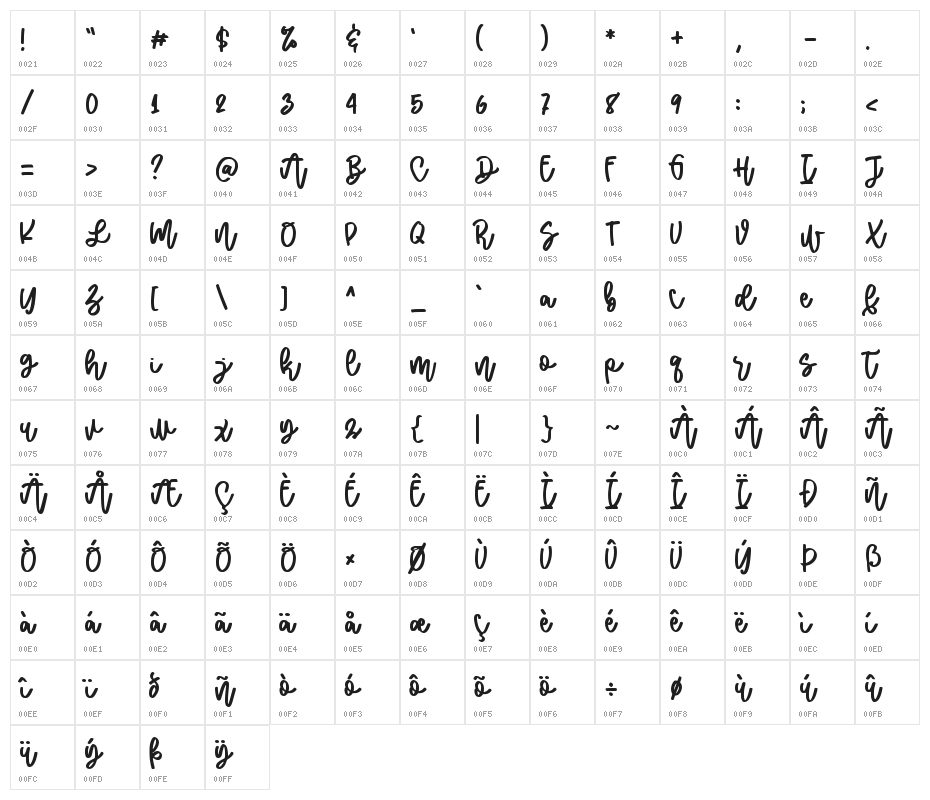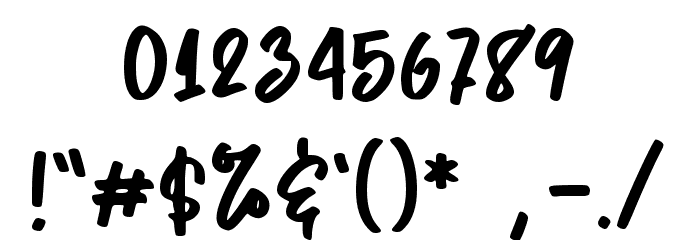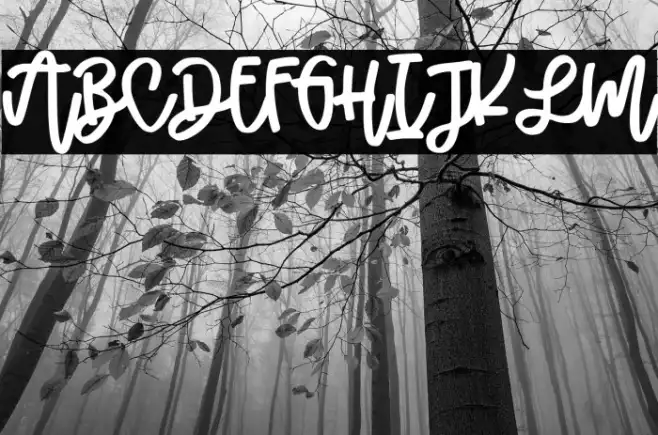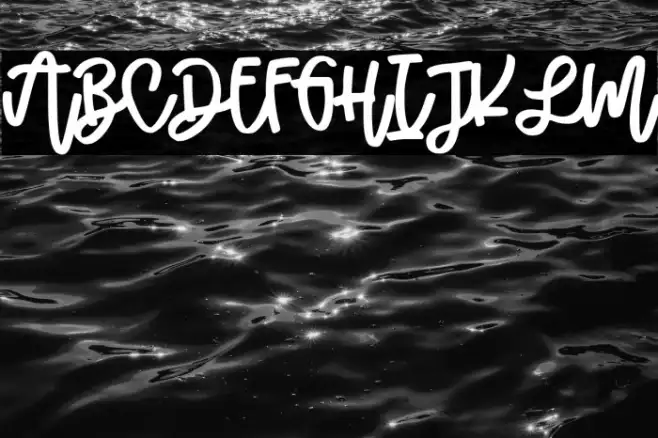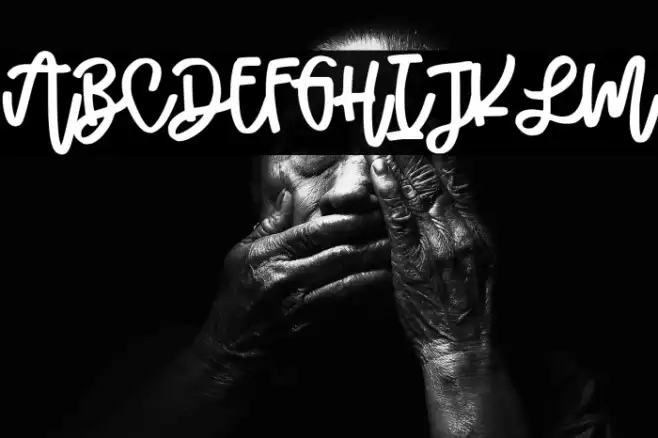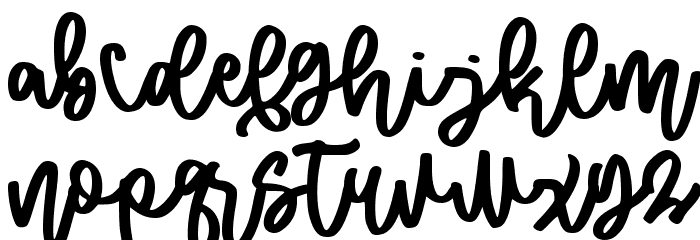
Malihah Script Font
Malihah Script Description
This font exhibits a lively and flowing script style, characterized by its bold and expressive strokes. The letters are interconnected, creating a sense of continuity and rhythm, reminiscent of handwritten calligraphy. The uppercase letters maintain a consistent height, while the lowercase letters feature loops and curves that enhance its dynamic appearance. The numerals and special characters are crafted with the same fluidity, ensuring a cohesive look across all glyphs. This font's playful yet elegant nature makes it suitable for creative and artistic projects.